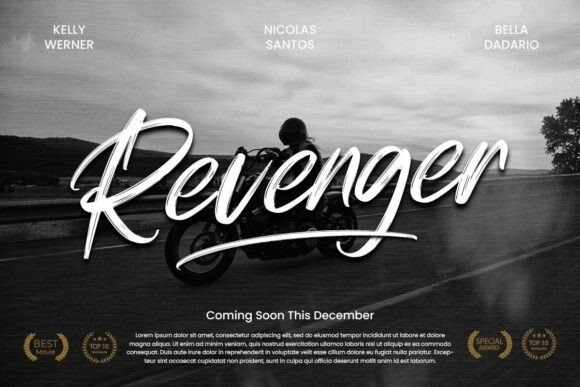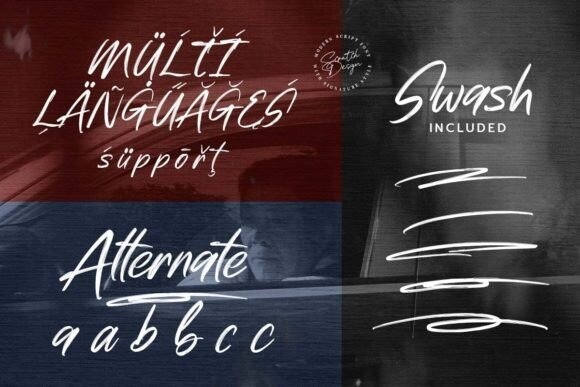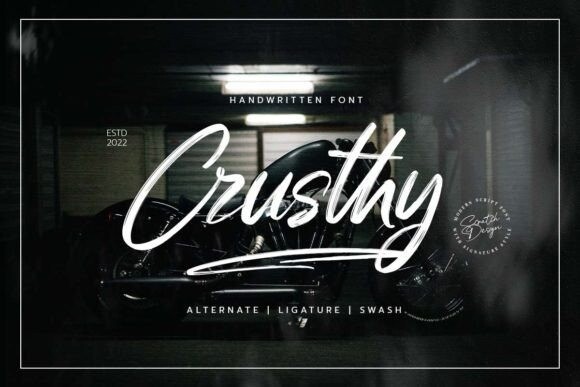
Crusthy Font Font
Introducing, Crusthy – modern handwritten font with a signature style and brush texture. This font comes with textured handwriting, it looks authentic but is still readable and incredibly versatile. This font will look outstanding in any design concept, whether it’s being used on colorful backgrounds or as a headline on a minimalist background.